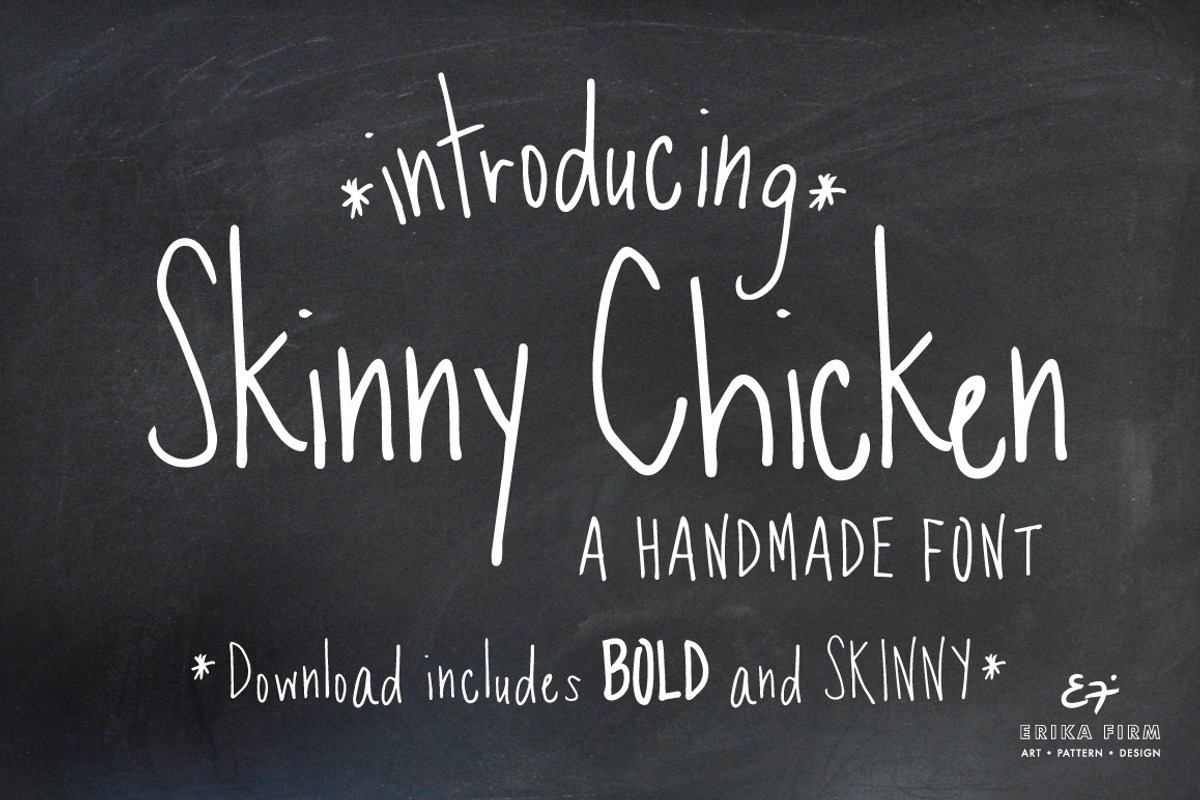
Skinny Chicken Handmade Fonts Free Download
Skinny Chicken Handmade Fonts Free Download is a quirky and light-hearted typeface full of personality. With its tall, narrow letterforms and hand-drawn feel, this font is perfect for fun branding, kids’ products, greeting cards, crafts, blog headers, and playful packaging. It brings a sense of humor and charm to every design it touches.
Using the Skinny Chicken Handmade Fonts Free Download adds a whimsical, approachable tone that’s great for informal and creative projects. Whether you're designing labels for homemade goods or crafting cheerful social media content, this font helps your message come across as friendly and memorable.